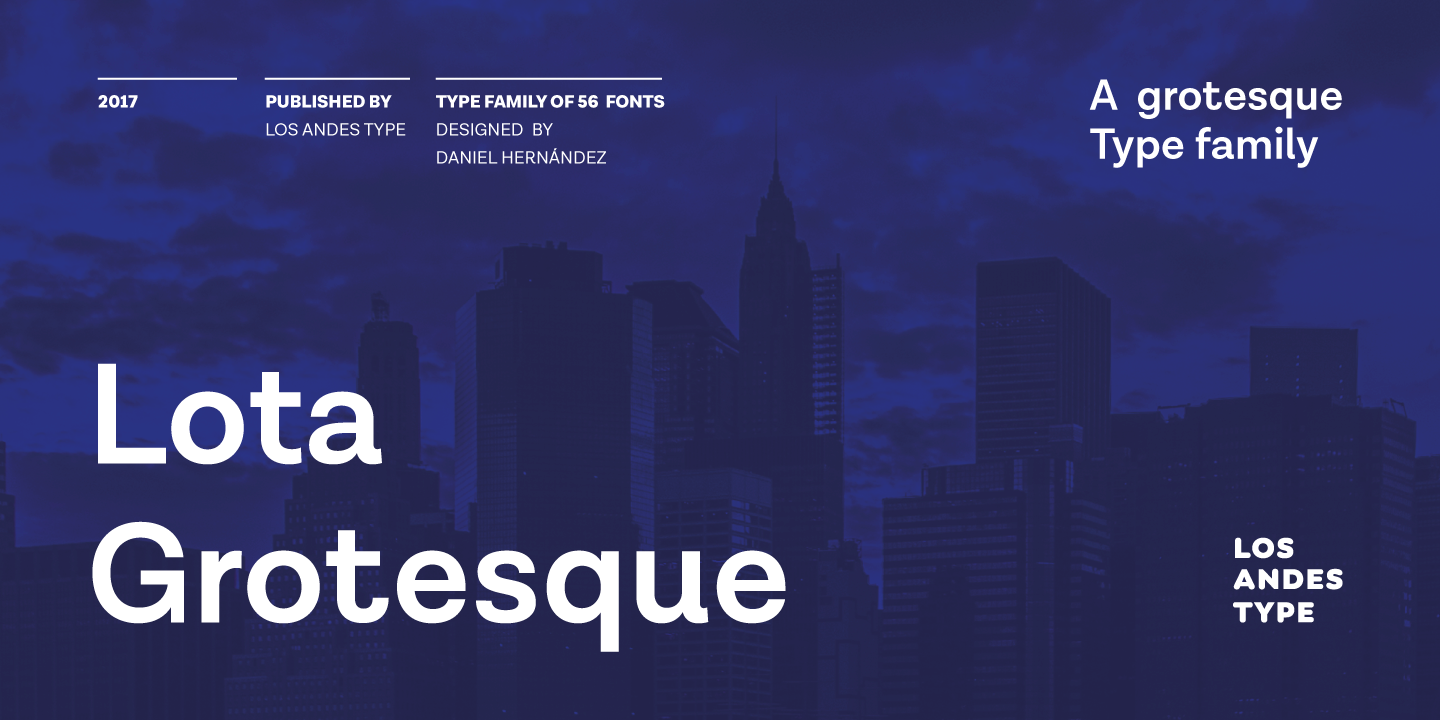
Lota Grotesque Font is a clean, contemporary sans-serif typeface, skillfully designed for clarity and versatility across a myriad of modern applications. Picture it providing crisp, friendly headlines for a tech blog, delivering highly legible body text for an innovative app interface, or bringing a fresh, minimalist aesthetic to corporate branding. Its balanced proportions and open forms make it an excellent choice for editorial design, web content, mobile applications, and any digital or print media where a straightforward, inviting, and highly readable typeface is essential. It performs exceptionally well at various sizes, ensuring your message is conveyed with utmost precision and approachability.
What makes Lota Grotesque Font truly exciting is its nuanced blend of geometric simplicity and subtle humanist warmth. While it offers the functionality and neutrality expected of a top-tier grotesque, it often features softer terminals or a slightly more organic rhythm that gives it a distinct charm. This thoughtful balance allows Lota Grotesque Font to feel both modern and approachable, making it highly adaptable for brands seeking to communicate professionalism without being cold. Designers frequently praise its meticulous construction, excellent legibility in both display and text settings, and its inherent versatility that allows it to seamlessly integrate into diverse design systems. It's not just a font; it's a meticulously crafted typographic solution for contemporary visual communication.
The Lota Grotesque Font family is typically extensive and well-organized, offering a comprehensive range of weights and styles to satisfy a broad spectrum of design needs. You can generally expect to find a wide array of weights, ranging from a delicate Hairline or Thin, perfect for subtle accents and airy designs, to a powerful Black or Ultra, ideal for impactful headlines and strong visual statements. Critically, most Lota Grotesque Font families also include corresponding Italic versions for each weight, which significantly enhances its flexibility for creating visual hierarchies and adding dynamic emphasis within your text. This extensive selection ensures remarkable creative control and allows you to achieve the perfect typographic tone for any project. Don't miss out on Lota Grotesque Font Free Download for your next design endeavor!